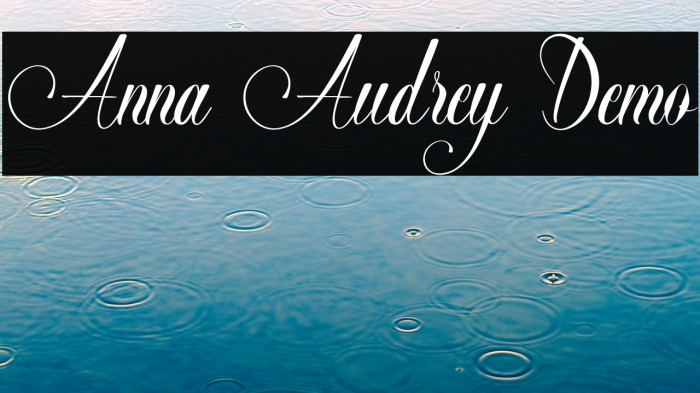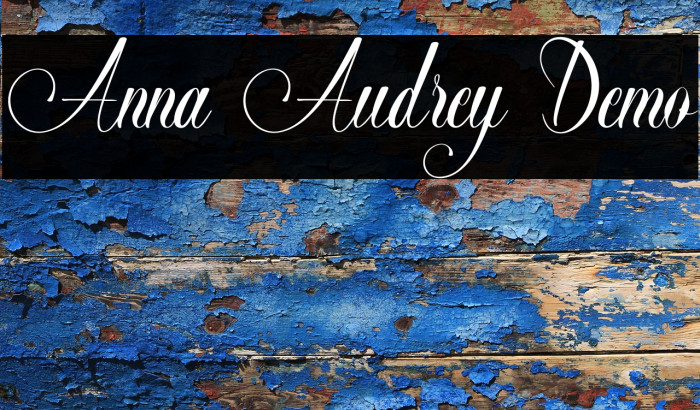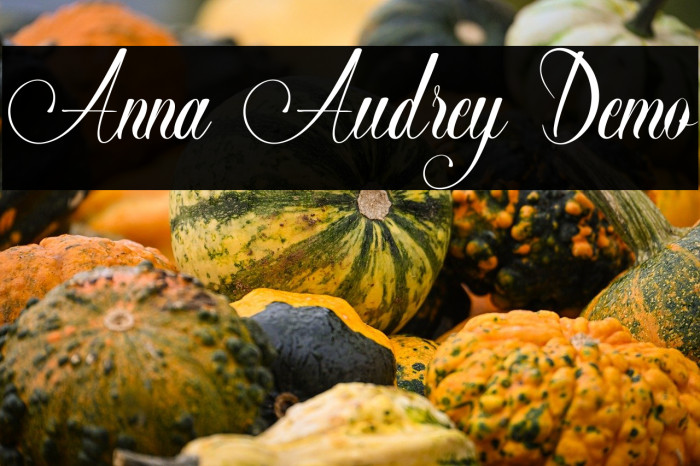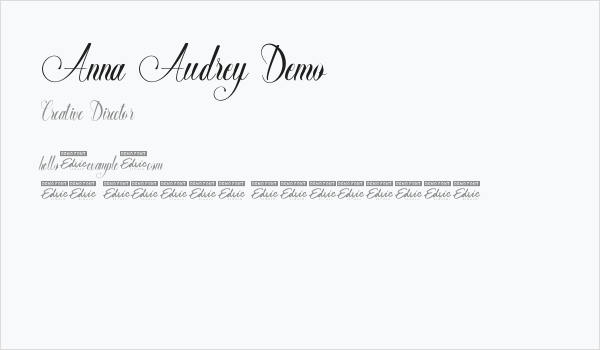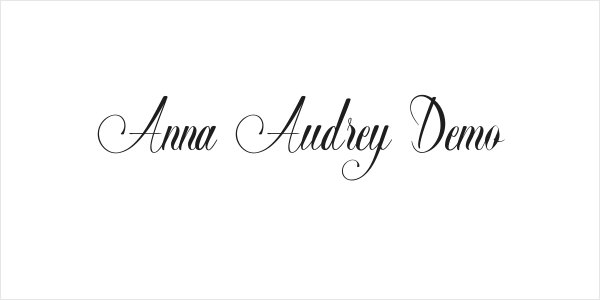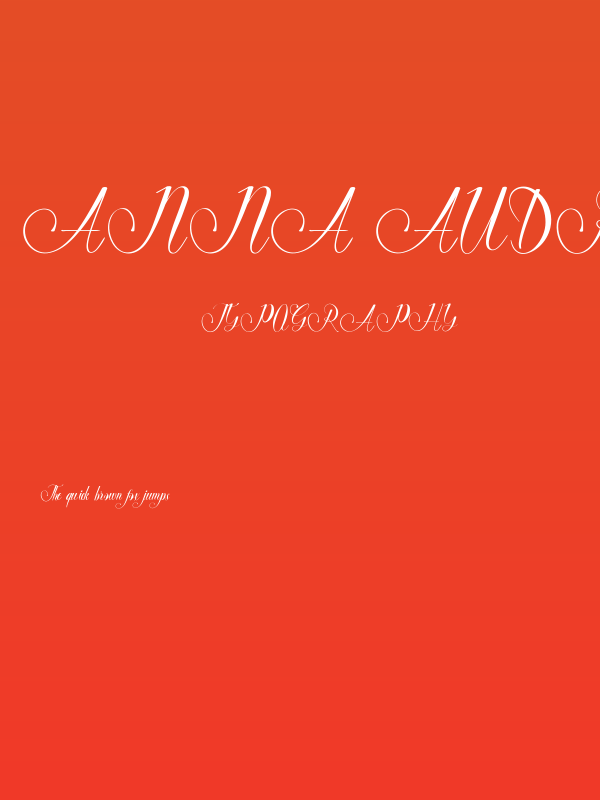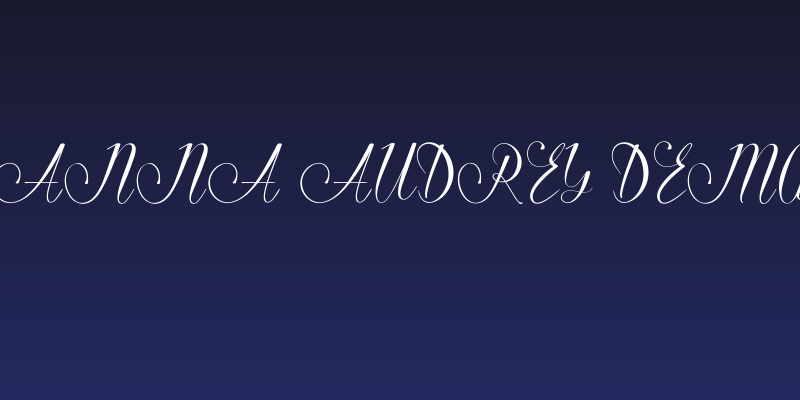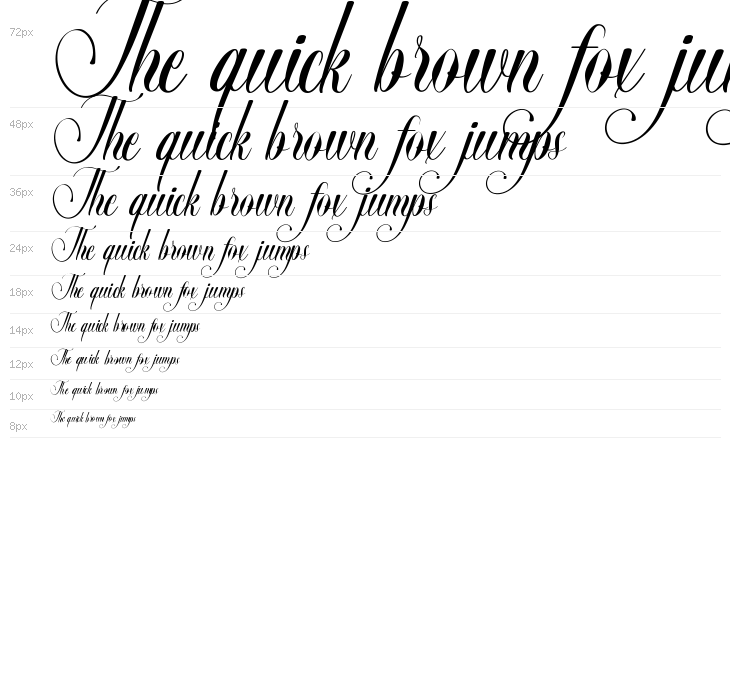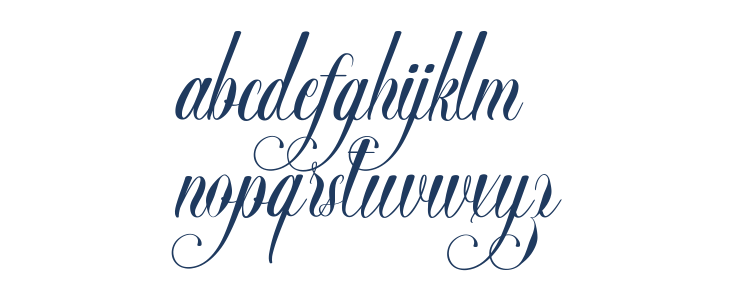
Anna Audrey Demo Font
Anna Audrey Demo Description
This font exudes elegance and sophistication with its flowing script style. The uppercase letters are characterized by their graceful loops and swirls, creating a sense of movement and fluidity. The lowercase letters maintain a consistent style, with elongated strokes and a slight slant that adds to the overall elegance. The font's design is reminiscent of classic calligraphy, making it suitable for formal and decorative uses. The characters are well-spaced, ensuring readability while maintaining an artistic flair. This font is ideal for projects that require a touch of class and refinement.